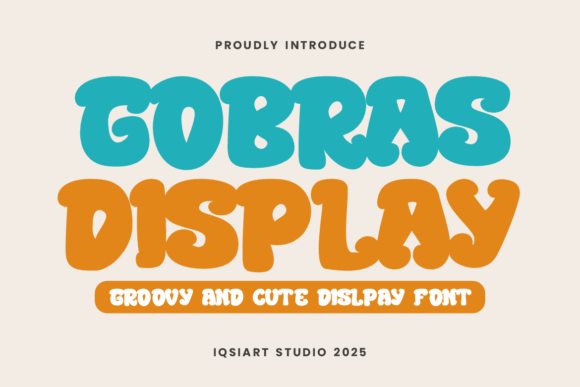
Gobras Display Font: A Groovy and Bubbly Typeface for Fun and Personality
Are you looking for a font that can add a touch of fun and personality to your designs? Look no further than Gobras Display Font! This groovy and bubbly typeface is perfect for posters, kids’ designs, logos, party invitations, and anything that needs a bold and cute touch.
What is Gobras Display Font?
Gobras Display Font is a modern, sans-serif typeface that features chunky, rounded shapes and retro vibes. The font is designed to be playful and eye-catching, making it perfect for designs that need to stand out. With its bold and bubbly personality, Gobras Display Font is sure to add a touch of fun to any design.
Key Features of Gobras Display Font
Chunky and Rounded Shapes
One of the standout features of Gobras Display Font is its chunky and rounded shapes. The font features bold, rounded letters that are perfect for creating eye-catching designs. The chunky shapes also make the font easy to read, even at large sizes.
Retro Vibes
Gobras Display Font also features retro vibes that are reminiscent of classic fonts from the 1950s and 60s. The font’s retro feel makes it perfect for designs that need a vintage or nostalgic touch.
Playful and Fun
Gobras Display Font is a playful and fun typeface that is perfect for designs that need a bold and cute touch. The font’s bubbly personality makes it perfect for kids’ designs, party invitations, and other fun and playful designs.
Uses for Gobras Display Font
Posters
Gobras Display Font is perfect for creating eye-catching posters that need to stand out. The font’s bold and chunky shapes make it easy to read, even at large sizes.
Kids’ Designs
Gobras Display Font is a great choice for kids’ designs, such as children’s books, educational materials, and kids’ party invitations. The font’s playful and fun personality is sure to appeal to kids and parents alike.
Logos
Gobras Display Font can also be used to create fun and playful logos for businesses that want to add a touch of personality to their brand. The font’s bold and chunky shapes make it easy to recognize and remember.
Party Invitations
Gobras Display Font is perfect for creating fun and playful party invitations that need to stand out. The font’s bubbly personality makes it perfect for birthday parties, baby showers, and other celebrations.
Why Choose Gobras Display Font?
Unique and Eye-Catching
Gobras Display Font is a unique and eye-catching typeface that is sure to add a touch of fun and personality to any design. The font’s bold and chunky shapes make it easy to read, even at large sizes.
Versatile
Gobras Display Font is a versatile typeface that can be used for a wide range of designs, from posters and kids’ designs to logos and party invitations.
Tips for Using Gobras Display Font
Use it Sparingly
Gobras Display Font is a bold and eye-catching typeface, so it’s best to use it sparingly. Use the font for headings and titles, and a simpler font for body text.
Experiment with Colors
Gobras Display Font looks great in a variety of colors, so don’t be afraid to experiment. Try using bright and bold colors to add a touch of fun and personality to your designs.
Pair it with Other Fonts
Gobras Display Font can be paired with other fonts to create a unique and eye-catching design. Try pairing it with a simpler font, such as Arial or Helvetica, to create a bold and modern look.
Gobras Display Font is a groovy and bubbly typeface that is perfect for designs that need a bold and cute touch. With its chunky, rounded shapes and retro vibes, this playful font is sure to add a touch of fun and personality to any design. Whether you’re creating posters, kids’ designs, logos, or party invitations, Gobras Display Font is a great choice.